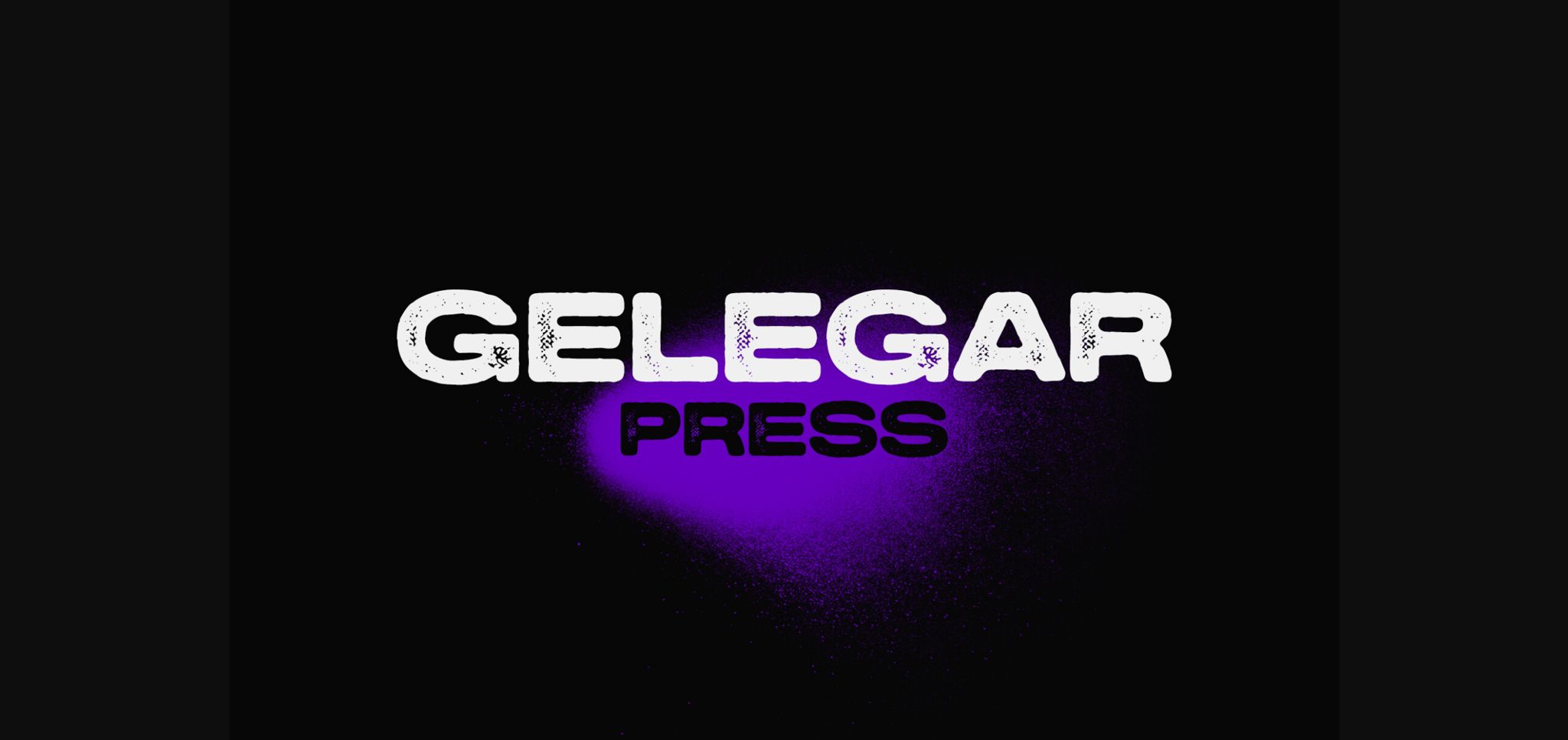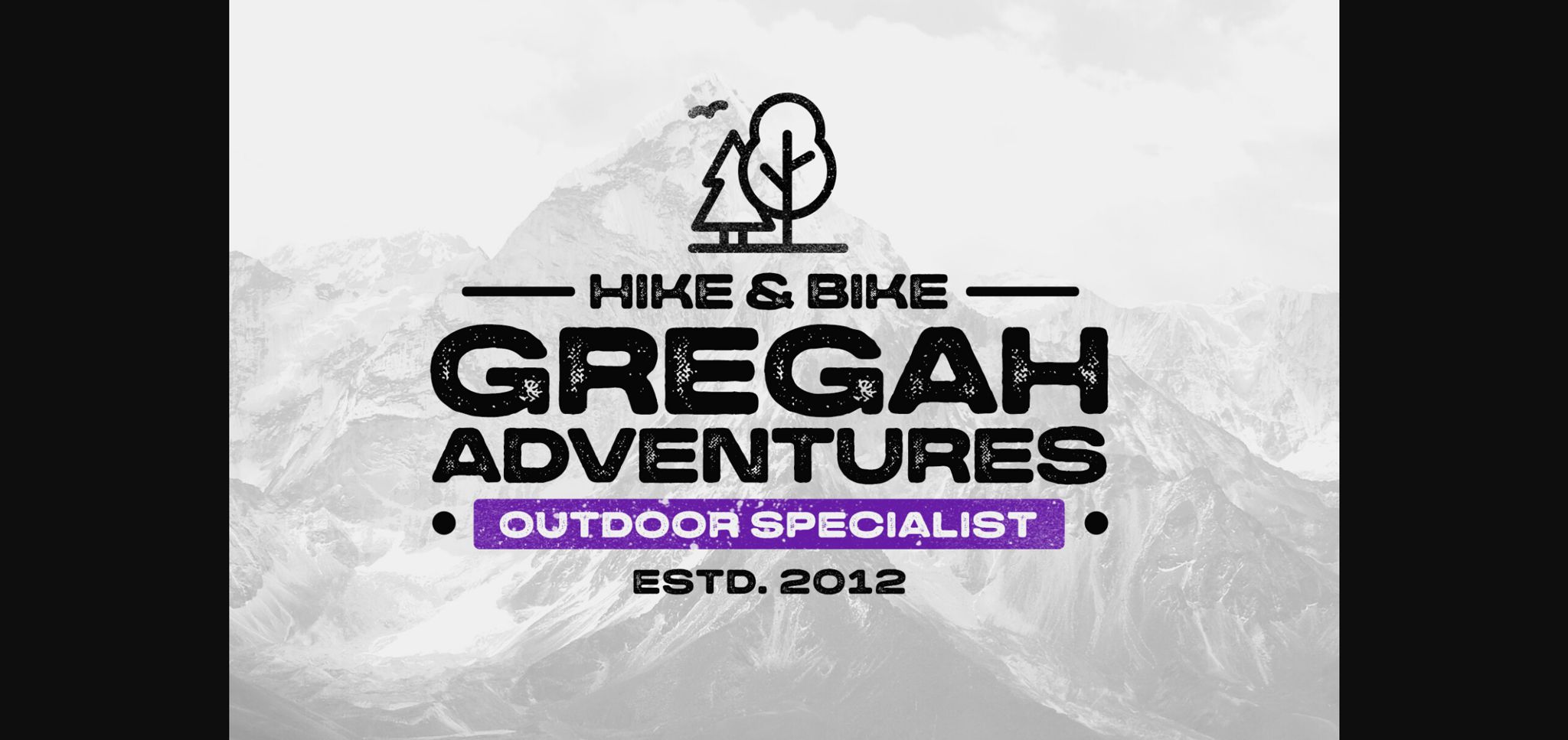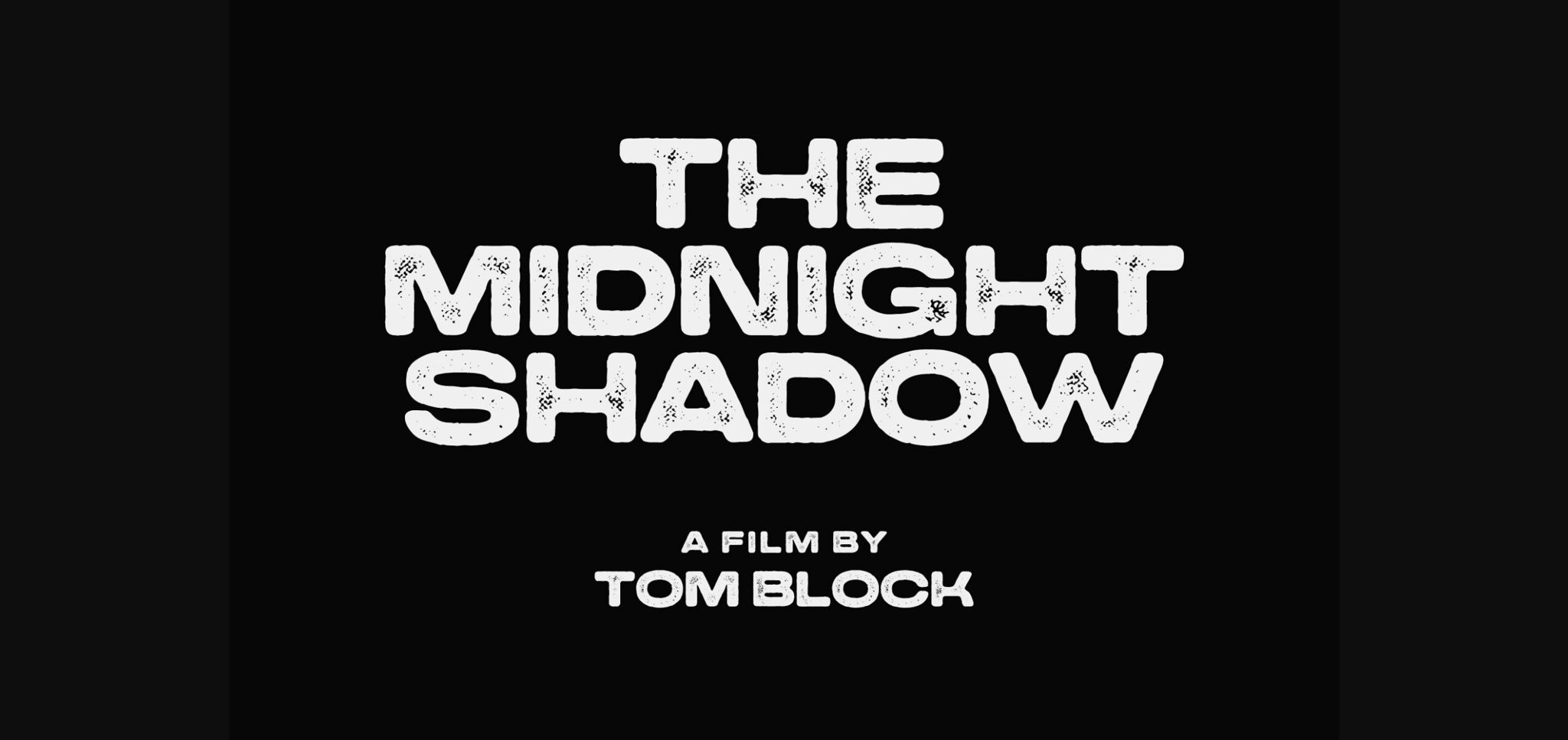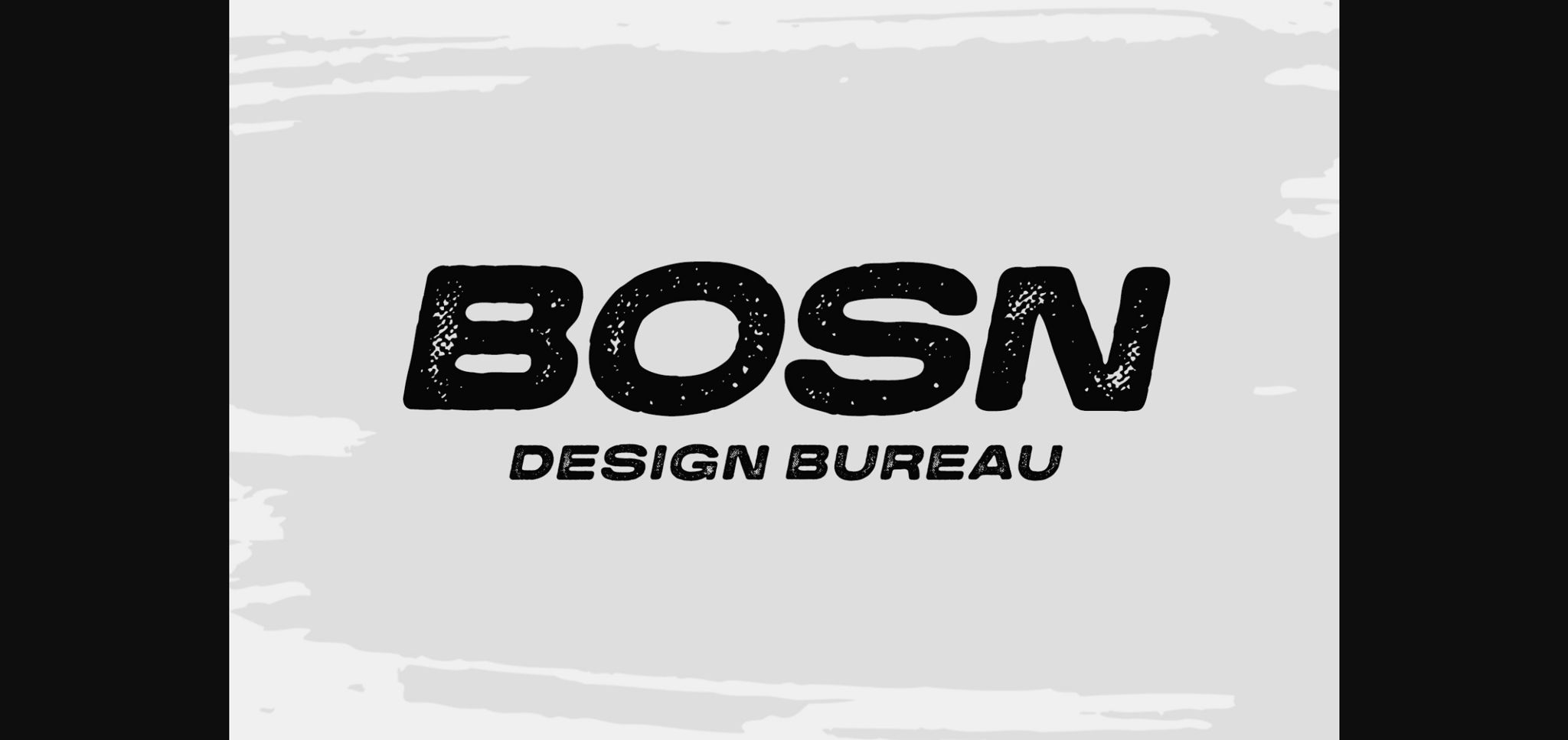
About Gelegar Press Font
Gelegar Press is an extraordinary ultra-wide display sans serif font meticulously crafted for commanding visual and emotional impact. Whether you’re designing posters, social media posts, attention-grabbing headlines, monumental titling, or large-format prints, Gelegar ensures your project stands out from the crowd.